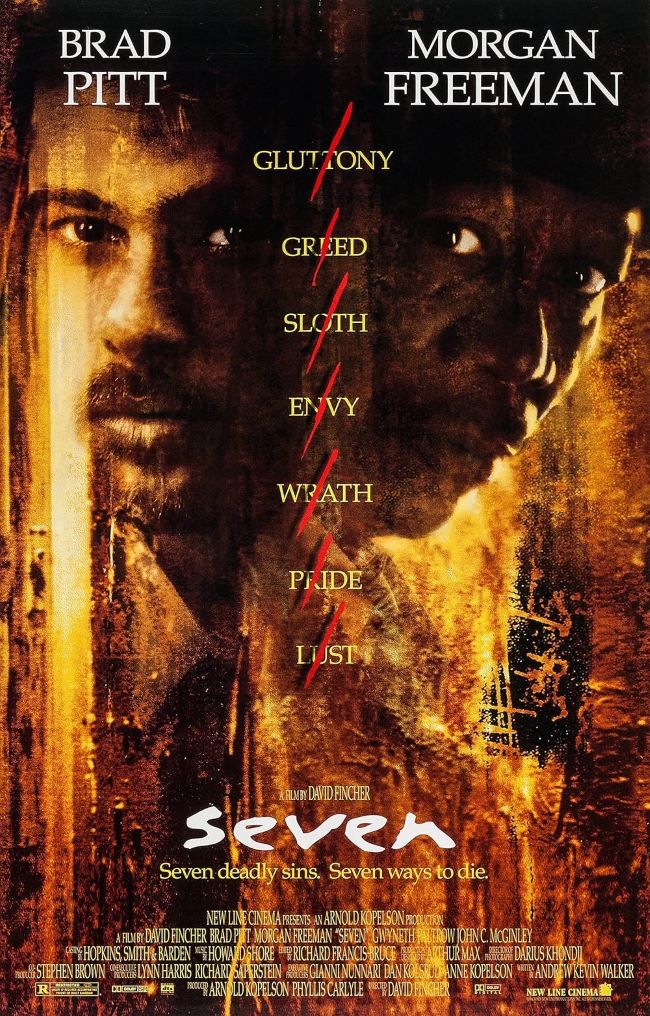
Seven Font embodies psychological horror through distressed, unsettling letterforms that mirror the film’s disturbing narrative. This typography transforms ordinary text into visual unease, making it essential for creators exploring themes of darkness, crime, and moral complexity in their designs.
While there is no official typeface released by the studio, fan-made versions such as Seven Movie Font replicate the original title’s eerie and fragmented appearance. For designers seeking a free alternative, Cracked Johnnie offers a similar distressed and edgy effect.
Se7en Font
Cracked Johnnie Font (Free Alternative)
Seven Font works brilliantly for horror games, true crime podcasts, thriller book covers, and Halloween promotions. Its fractured aesthetic communicates instability and danger without words, creating immediate emotional impact.
The Seven Font proves typography can be genuinely terrifying. Its continued relevance demonstrates how visual design amplifies storytelling, offering designers powerful tools to evoke dread and suspense across various media platforms.